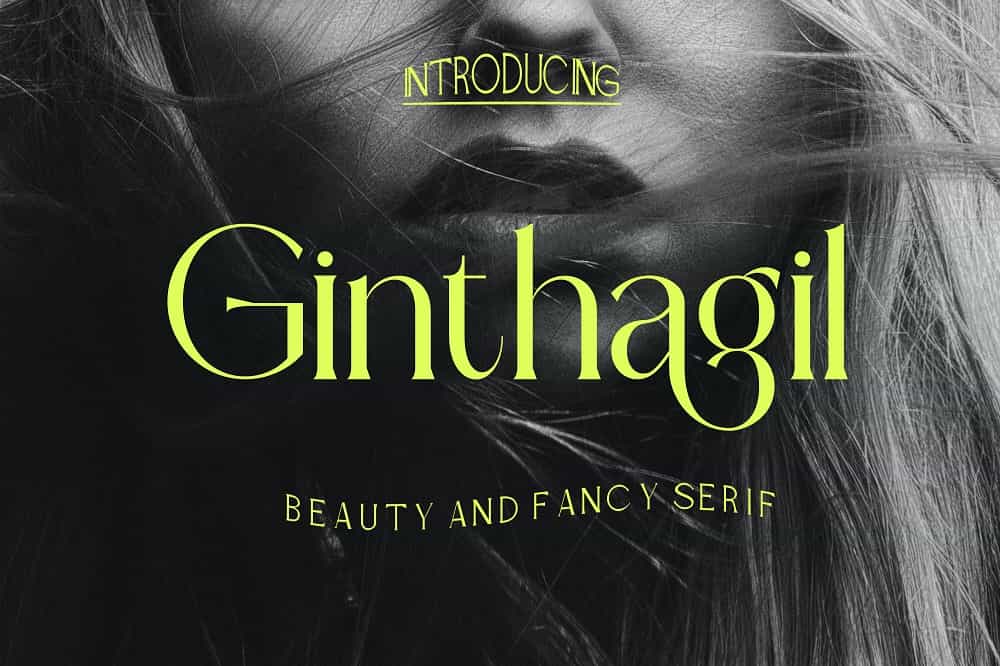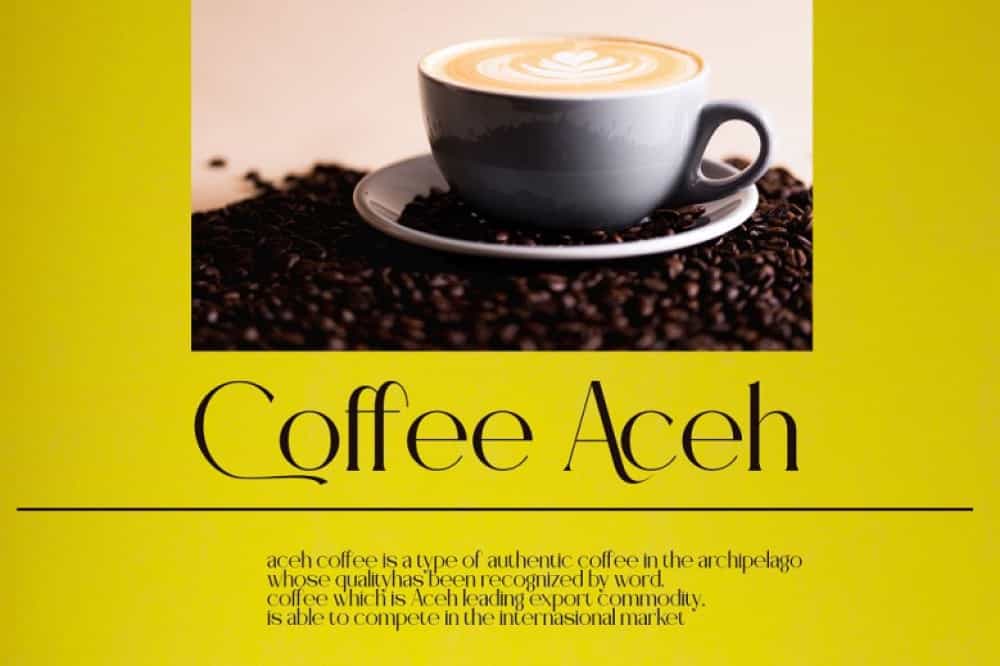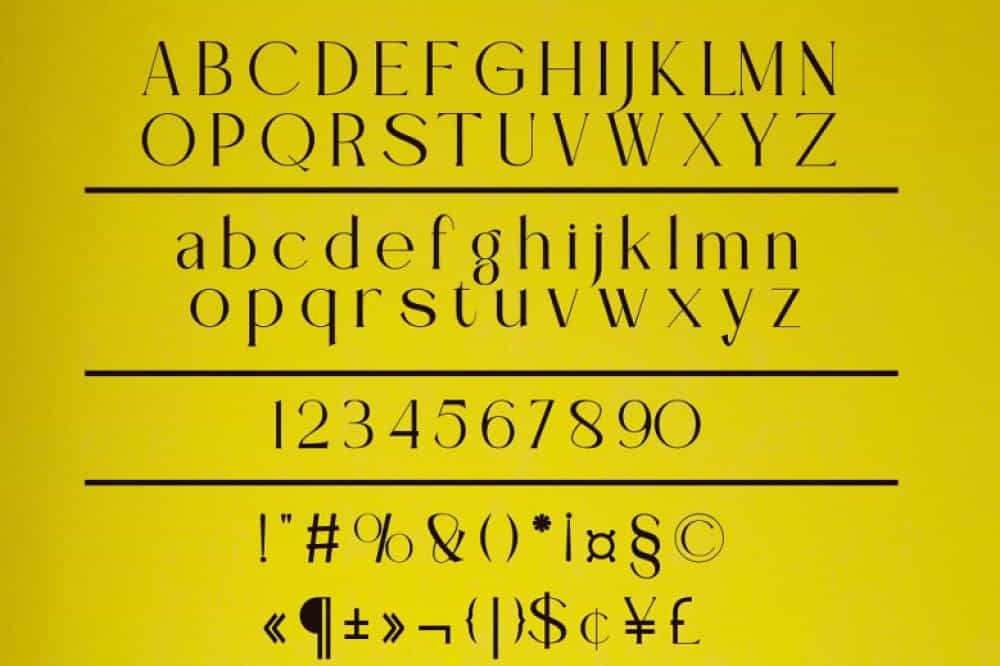
Ginthagil is a beauty and fancy serif font that comes with OpenType features to get a large set of alternates and ligatures, choose your favorite letters from a set of uppercase and lowercase letters to give a royal touch and stylish look.